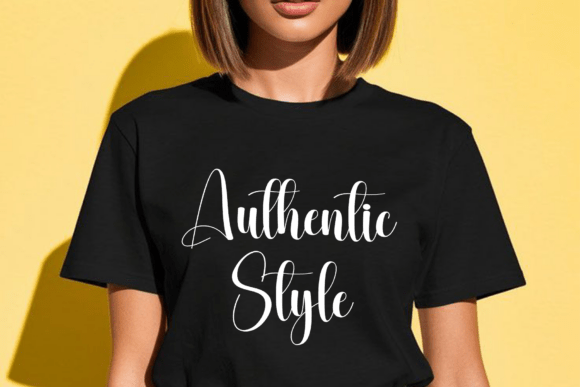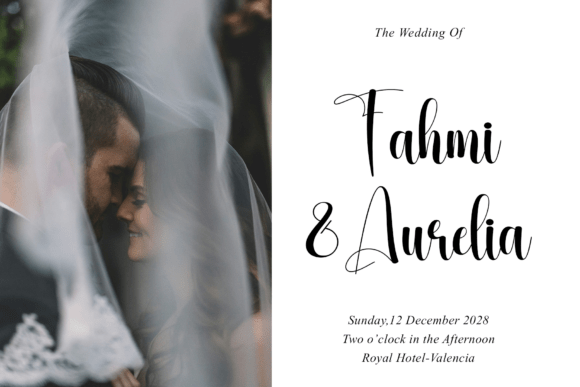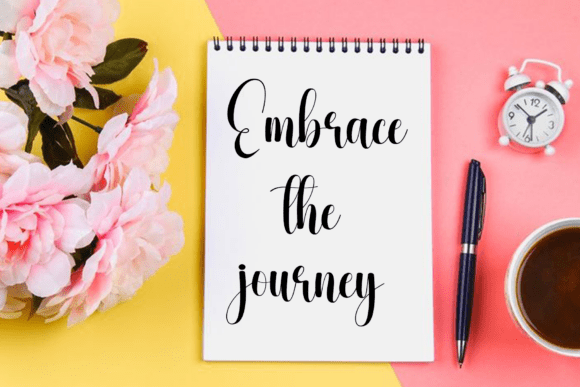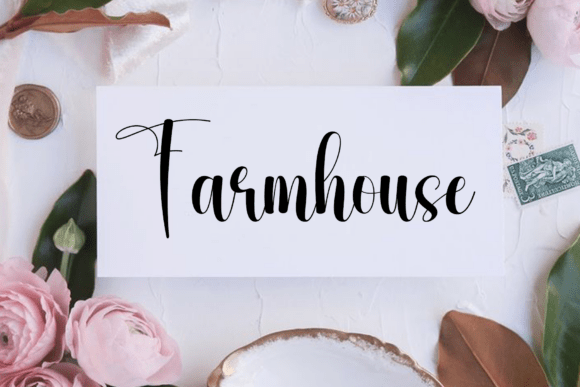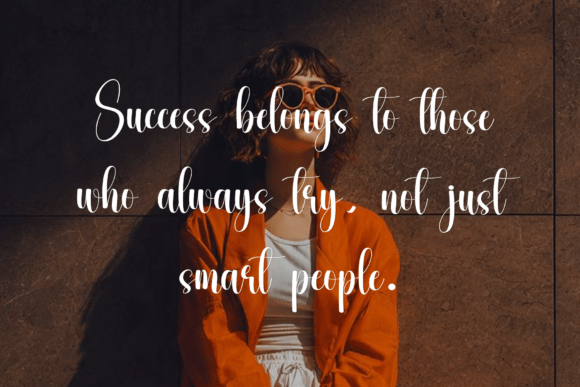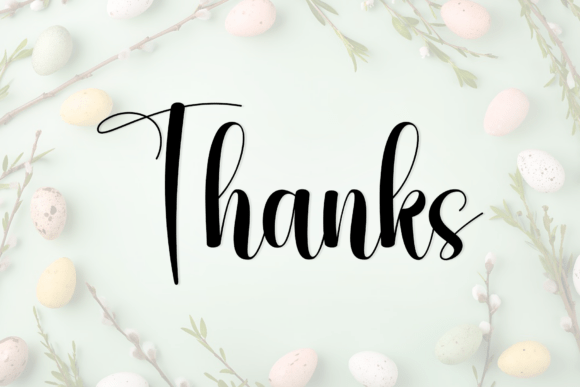
Easterday Font: Elevate Your Design with Modern Elegance
In the world of typography, few fonts manage to convey the essence of modern elegance as effortlessly as Easterday. This stunning handwritten script font is a masterclass in sophistication, bringing a fluid, signature-like motion to every word. With its delicate balance of tall ascenders and sweeping loops, Easterday creates a rhythmic visual flow that’s perfect for luxury branding, signature logos, wedding stationery, and high-end editorial content.
The Characteristics of Easterday Font
Easterday is more than just a font – it’s an experience. Its fluid strokes and connected letters evoke a sense of movement and fluidity, making it perfect for designs that require a touch of dynamism. The font’s tall ascenders and elegant loops create a sense of grandeur, while its delicate balance ensures that every word feels refined and sophisticated.
One of the standout features of Easterday is its versatility. Whether you’re designing a luxury brand logo, a wedding invitation, or a high-end editorial spread, this font adapts seamlessly to any context. Its modern elegance is unmistakable, adding a touch of class to every word.
Perfect for Luxury Branding
Luxury branding requires a font that’s both sophisticated and memorable. Easterday delivers on both counts, providing a unique and distinctive voice for brands that want to stand out. Its elegant strokes and refined aesthetic make it perfect for high-end fashion, beauty, and lifestyle brands that want to convey a sense of exclusivity and refinement.
With Easterday, luxury brands can create a consistent visual identity that resonates with their target audience. From logo design to packaging and advertising, this font ensures that every touchpoint feels cohesive and sophisticated.
Wedding Stationery and Editorial Content
Easterday is also a dream for wedding stationery and high-end editorial content. Its romantic, flowing strokes evoke a sense of whimsy and wonder, making it perfect for wedding invitations, save-the-dates, and other stationery. The font’s elegance and sophistication also make it ideal for high-end editorial spreads, such as fashion magazines and luxury lifestyle publications.
For designers and crafters, Easterday offers endless possibilities for creative expression. Whether you’re designing a bespoke wedding invitation or a high-end editorial spread, this font provides the perfect foundation for your work.
Tips for Using Easterday Font
To get the most out of Easterday, here are a few tips to keep in mind:
- Use it sparingly: Easterday is a statement font, so use it sparingly to maximize its impact. A little goes a long way, and using it too much can dilute its effectiveness.
- Experiment with sizes: Easterday looks stunning in large sizes, but it can also be effective in smaller sizes. Experiment with different sizes to find the perfect balance for your design.
- Pair it with neutrals: Easterday pairs beautifully with neutral fonts like sans-serif and serif fonts. Use it as a headline font and pair it with a neutral font for body copy.
Easterday is a game-changing font that brings modern elegance to every word. With its fluid strokes, delicate balance, and sophisticated aesthetic, it’s perfect for luxury branding, signature logos, wedding stationery, and high-end editorial content. Whether you’re a designer, crafter, or simply someone who appreciates beautiful typography, Easterday is a must-have font that will elevate your design to new heights.